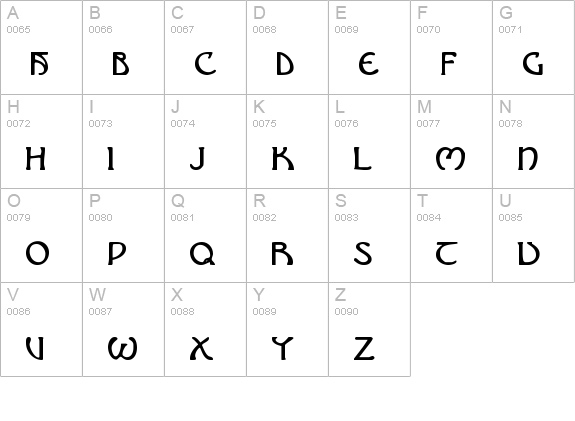
Brin Athyn is a stunning and versatile font that effortlessly combines elegance and modernity. With its sleek lines and sophisticated curves, this font is perfect for a wide range of design projects, from branding to editorial design. The clean and legible typeface of Brin Athyn makes it a great choice for both print and digital applications. What sets Brin Athyn apart is not just its aesthetic appeal, but also the fact that it is available for free. Yes, you read that right - this exquisite font can be downloaded for free at FontsMarket.com. Whether you are a graphic designer looking to add a touch of sophistication to your creations or a business owner in need of a stylish font for your marketing materials, Brin Athyn is the perfect choice. Don't miss out on the opportunity to elevate your designs with this beautiful and free font.